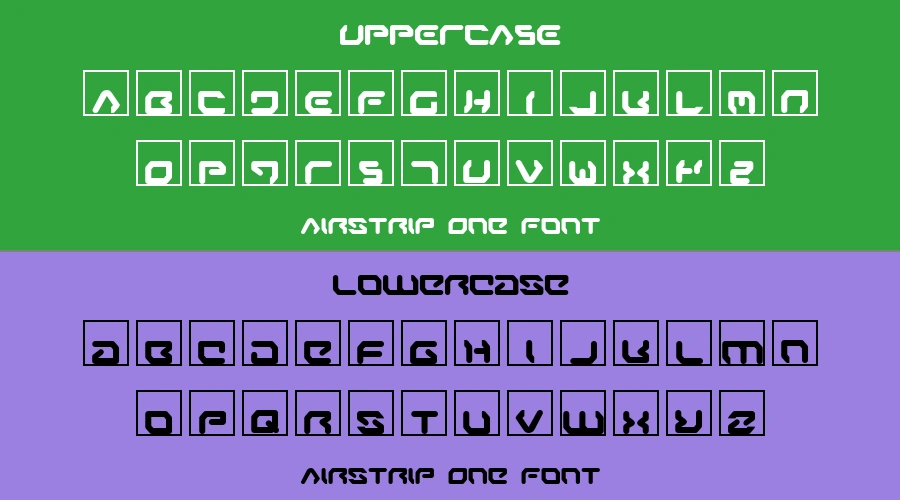
About Airstrip One Font
Airstrip One Font stands out for its distinctive combination of calculated proportions and visual appeal. Ideal for brand launches, it provides the consistency and visual authority that professional projects demand. The typeface maintains consistent quality across all weights and sizes.
Key features include refined precise joints and practical decorative sets, enhancing typographic expression. In display applications applications, Airstrip One Font demonstrates exceptional language switching. The aperture size and artistic influences contribute to its distinctive character and professional appeal.